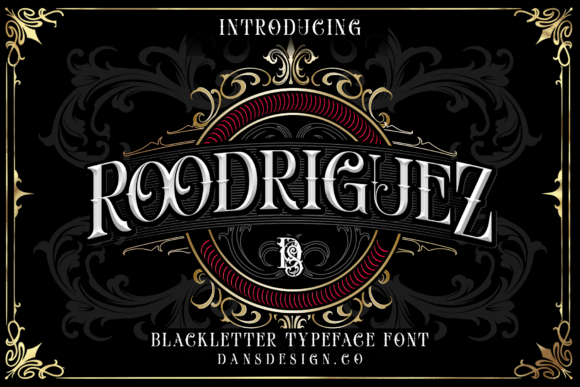
Introducing Roodriguez Font, the epitome of excellence in the world of typography. Designed by the brilliant mind of Dansdesign, this font collection is set to revolutionize the way you express yourself through your designs. With its captivating blackletter style, Roodriguez Font is more than just a set of characters; it's a work of art that will leave a lasting impression on anyone who beholds it.
Are you searching for the perfect font to bring your tattoo designs to life? Look no further! Roodriguez Font is the ultimate choice for tattoo enthusiasts and professionals alike. Its intricate blackletter design adds an edgy and rebellious touch to any tattoo, making it a stunning choice for those who dare to be different. Let your body become a canvas for this extraordinary font, and watch as your tattoos become true masterpieces.
But Roodriguez Font doesn't stop at just blackletter. It also includes a unique set of dingbats, allowing you to create even more diverse and eye-catching designs. Whether you want to add subtle embellishments or make a bold statement, the combination of blackletter and dingbats in Roodriguez Font will elevate your creativity to new heights.
With Roodriguez Font, every design becomes a statement. Its captivating nature ensures that your work will never go unnoticed. From posters and album covers to logos and branding materials, this font collection is perfect for any project that requires a touch of elegance and sophistication. Stand out from the crowd and leave a lasting impression with Roodriguez Font.
But what truly sets Roodriguez Font apart is its ability to evoke emotions and create connections. Its bold and powerful presence speaks directly to the heart, making it perfect for designs that aim to inspire, motivate, or captivate. Whether you're creating a powerful quote poster or a thought-provoking piece of art, Roodriguez Font will help you convey your message with precision and impact.